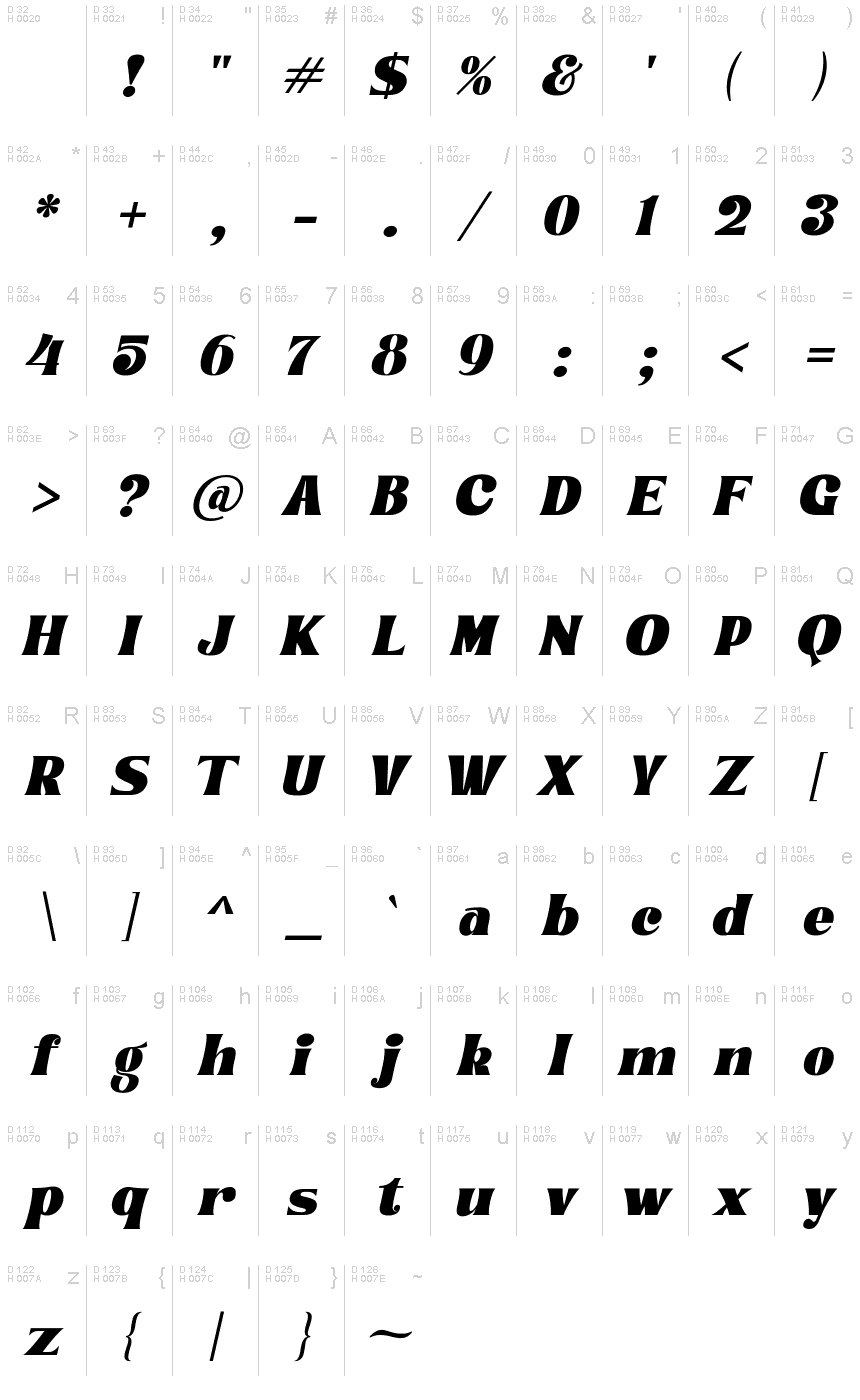
Beyond Worth Italic
Beyond Worth Italic, a stunning addition to the Beyond Worth font family designed by Java Pep, brings a touch of sophistication to your projects.
With its bold and elegant serif style, this font is the perfect choice for creating attention-grabbing headlines, titles, and logotypes. Whether you're working on branding materials or looking to make a bold statement with your text, Beyond Worth Italic has got you covered. Its regular and outline styles allow for endless possibilities in mixing and matching, ensuring that your design project stands out from the crowd.